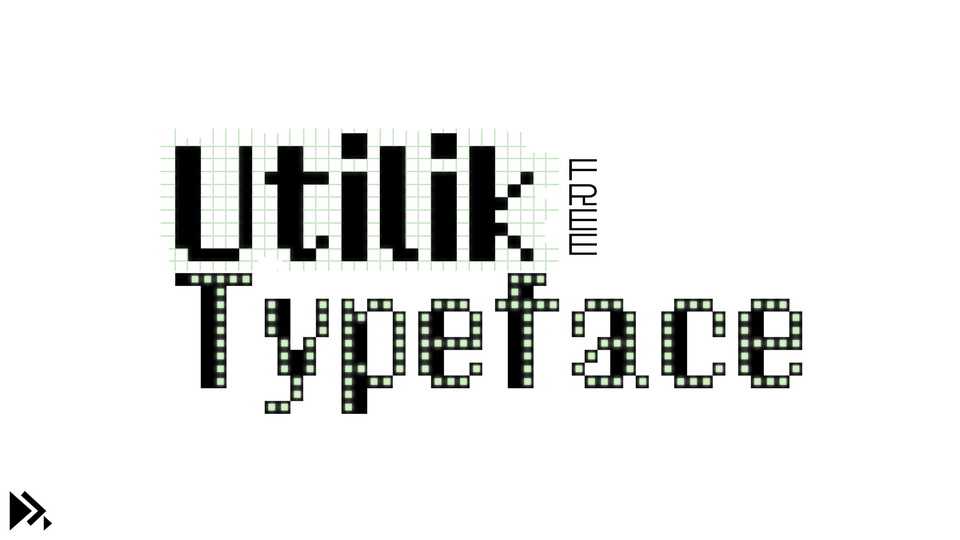
Download Utilik font, a pixel typeface with a touch of humanist. With three styles, Utilik font is great for logos, headings, and small block of text.